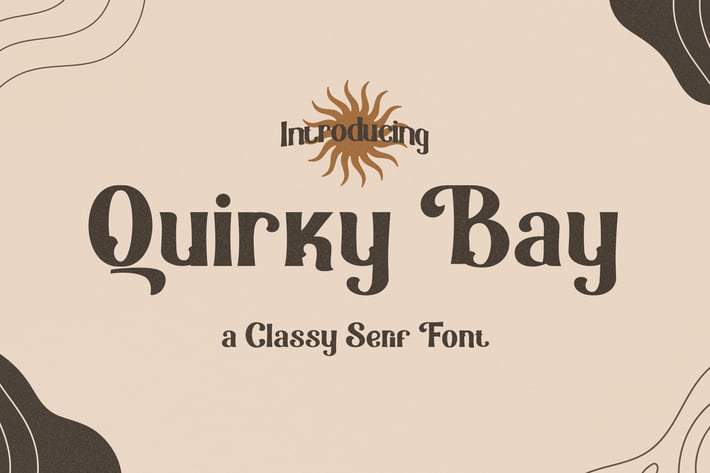
Quirky Bay – Classy Serif Font
If you’re looking for a retro and unique font (One which will bring all sorts of happiness to any project) the Quirky Bay font is just for you. It combines a sense of cuteness, elegance, and vintage which makes it distinctive enough to give any project life and energy. It’s a gorgeous font that can be used beautifully for wedding invitations, eye-catching social media posts, cute greeting cards, and much more.